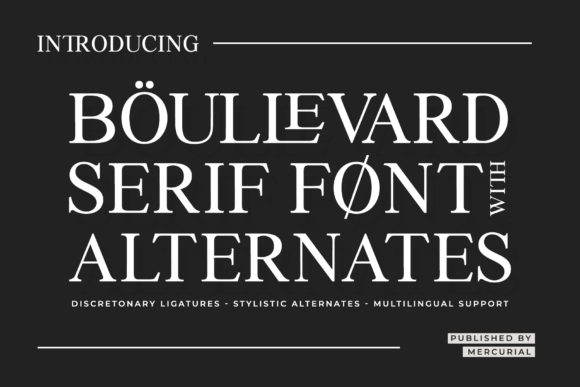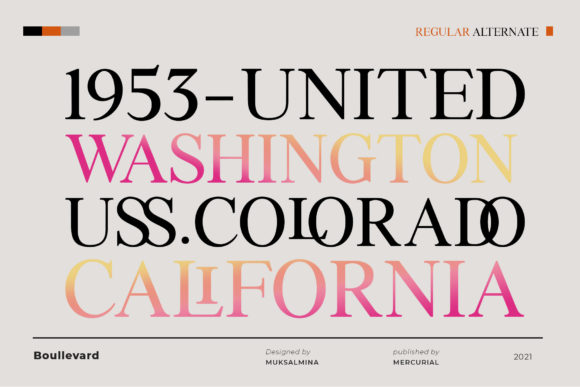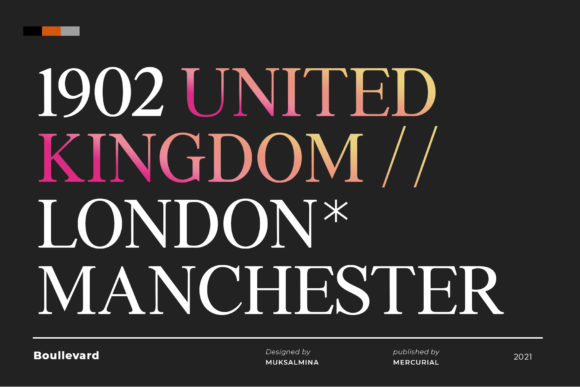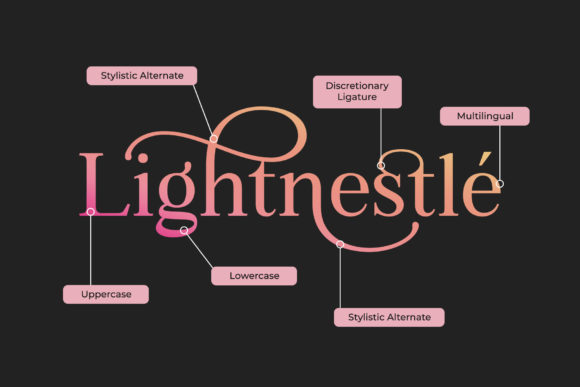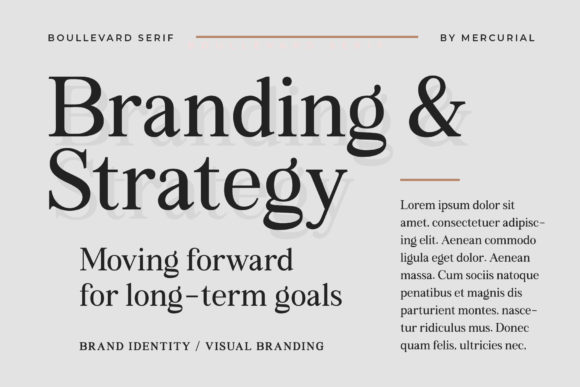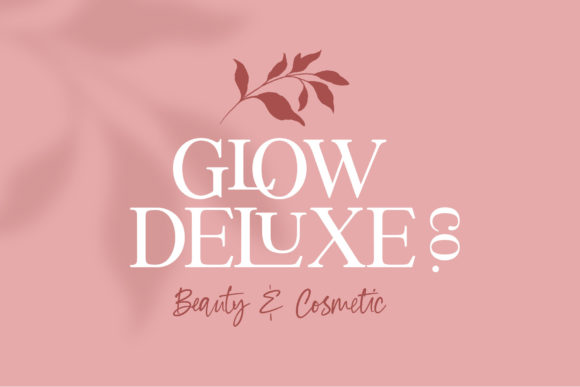
Unlock the Elegance of Boullevard Font
Imagine you’re sipping a cup of coffee on a quiet morning, surrounded by the soft glow of your computer screen. The perfect moment to dive into your creative world and bring your ideas to life. You’re about to design a luxurious brochure, a wedding invitation, or a stunning logo – and that’s where the right font comes in.
Meet the Boullevard Font, a modern and impressive serif font that exudes elegance and sophistication. Its characters are designed to leave a strong impression, making it perfect for adding a touch of class to your designs. With the Boullevard Font, you can create extraordinary effects that will leave a lasting impact on your audience. Whether you’re a seasoned designer or just starting out, this font is a valuable addition to your toolkit.
- Unique Characteristics: The Boullevard Font features a unique blend of modern and elegant design elements, with subtle flair and sophistication that sets it apart from other fonts.
Boullevard Font Review
I recently had the chance to work with the Boullevard font, and I have to say it’s a decent addition to any design project. ✨ One of the things that works well is its elegant and sophisticated feel, perfect for high-end branding and corporate designs. The font is also highly legible, making it a great choice for body text.
- ✨ Elegant and sophisticated feel, ideal for high-end branding and corporate designs
- ✨ Highly legible, making it suitable for body text
- ✨ Supports various languages, including Latin, Cyrillic, and Greek
However, there are some limitations to consider. ⚠️ The font can look a bit too formal at times, which may not be suitable for more casual designs. Additionally, the font family is relatively small, with only a few weights and styles available.
- ⚠️ Can look too formal for casual designs
- ⚠️ Limited font family, with only a few weights and styles available
Overall, I’d say the Boullevard font is a solid choice for designers who need a high-end, legible font. While it may not be the most versatile option, it’s certainly worth considering for the right project.
The Boullevard font is ideal for:
* Wedding invitations and stationery
* Luxury brand designs
* High-end marketing materials
* Elegant website headers and footers